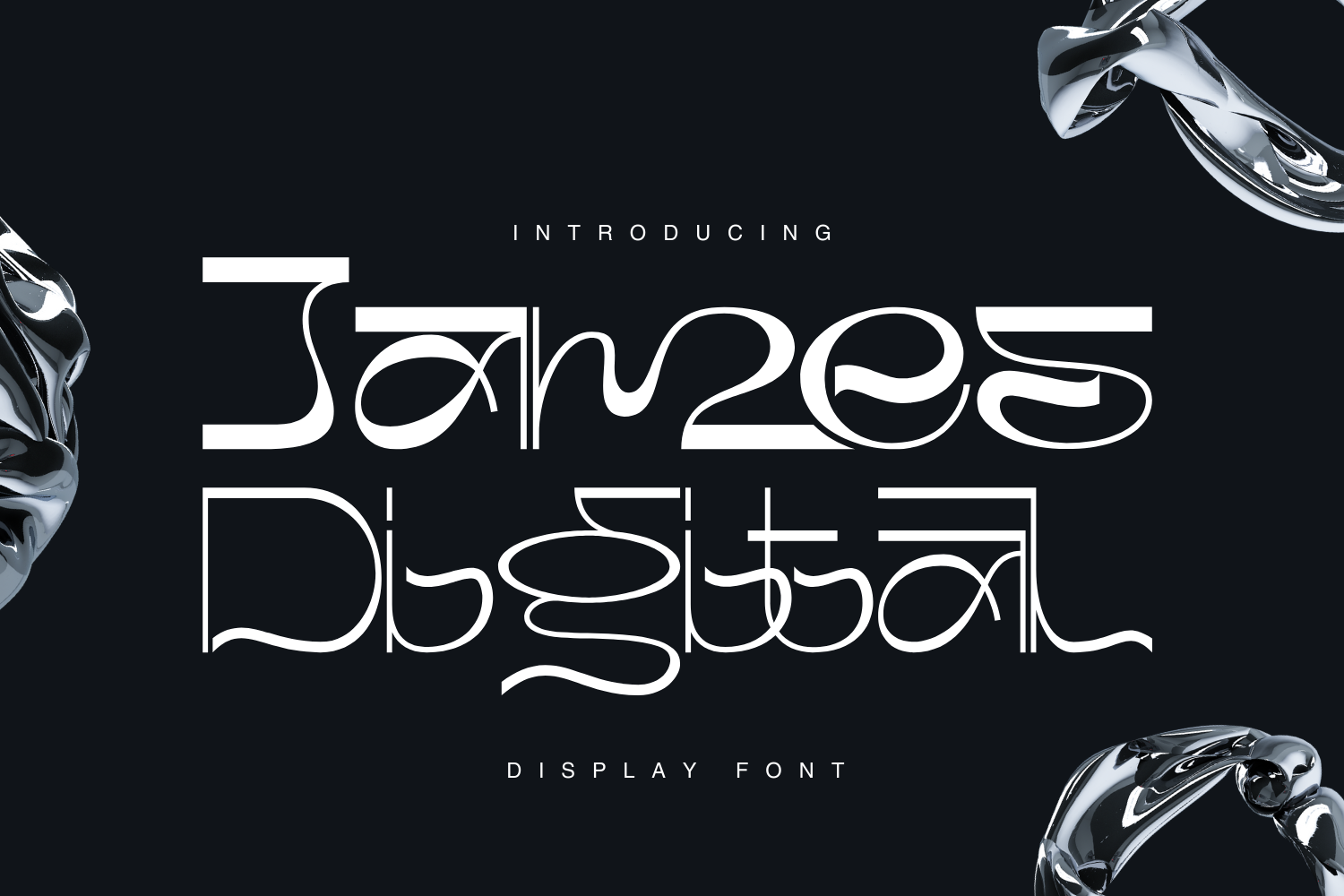
James Digital Font
James Digital Font is a playful and energetic display typeface that injects a burst of personality into any project. With its blend of sans-serif simplicity and script-inspired flourishes. It's a hand-crafted font that brings a unique visual voice to any design, from modern logos to instagram quotes, portfolio websites, editorial layouts, personal branding, wedding stationery, product packaging, and more!
James Digital was built with OpenType features and includes 100 ligatures, alternate, numbers, punctuation, and it also supports other languages.
ac ad al an ar as at au av be ca ce ch co ct de di ea ec ed ee el em en ep er es et fe fo fr ge ha he hi ho ie ic il in io ir is it ju ke la le li ll lo ly ma me mi nc nd ne ng no nt ns oc of om on oo op or ot ou ow pa pr ra rd re ri ro rs rt se sh si so ss st ta te th ti to tr tt um un ur ve wi wo